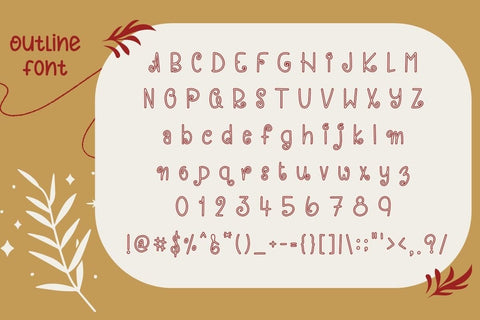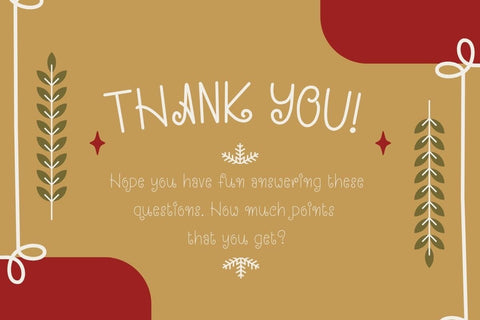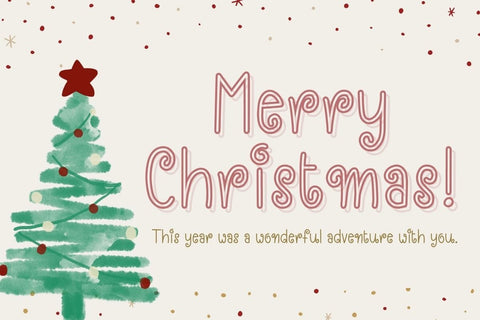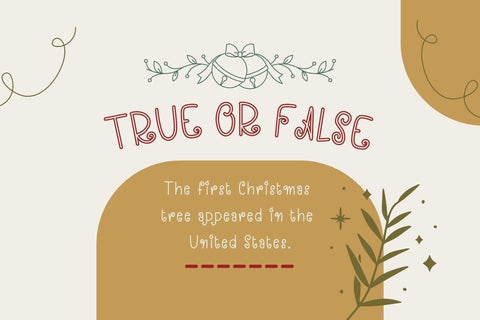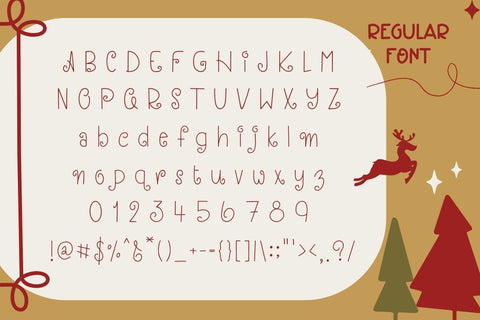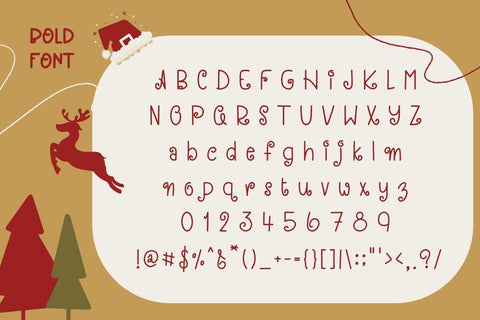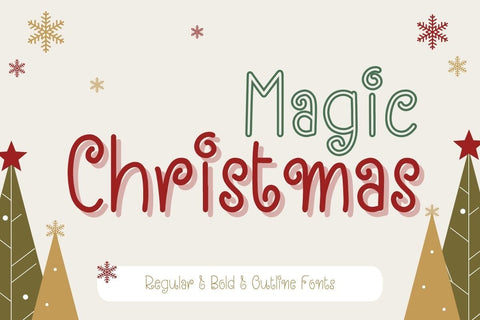
Magic Christmas - The Swirly Holiday Font Trio + Bonus Doodles
Magic Christmas – a whimsical and enchanting handwritten font designed to add a playful sparkle to your holiday creations! This delightful font features unique curly and swirly tails on various letters, giving it a truly magical, handcrafted feel. The set includes 3 versatile styles (Regular, Bold, and Outline) allowing for endless creative combinations and layering.
Note: The unique swirls are naturally integrated into the font, giving you that lovely hand-lettered look with minimal effort!